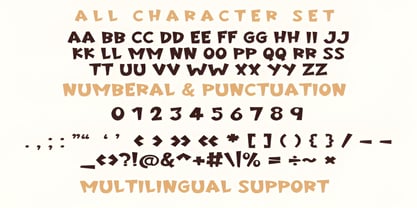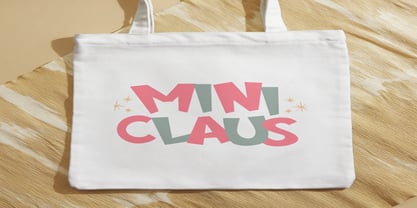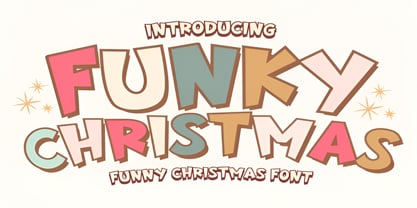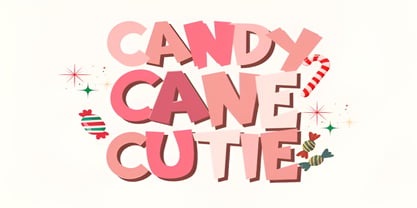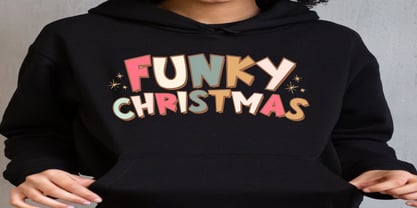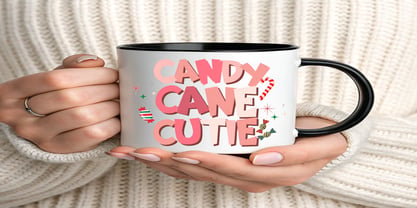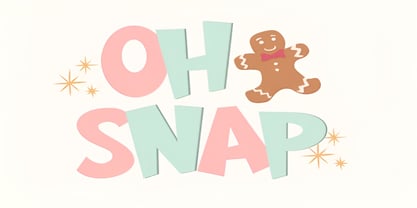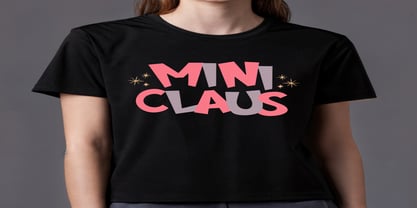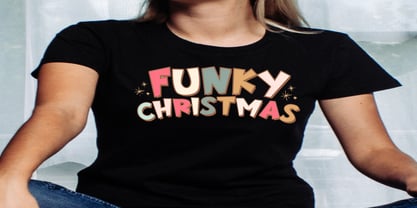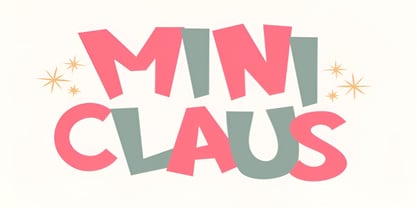
Funky Christmas
The Funky Christmas Font Family was designed by Tarik Zahir and published by Jena Fonts. Funky Christmas contains 1 styles. More about this family
Funky Christmas Font – Funny & Playful Holiday Alphabet for Festive Designs Add a touch of cheer to your holiday creations with the Funky Christmas Font! This funny and playful Christmas font captures the joyful spirit of the season — perfect for bringing your festive designs to life. Whether you're crafting Christmas cards, designing holiday invitations, creating Canva projects, or working on logos, branding, and social media posts, this decorative Christmas typeface adds instant charm and personality.